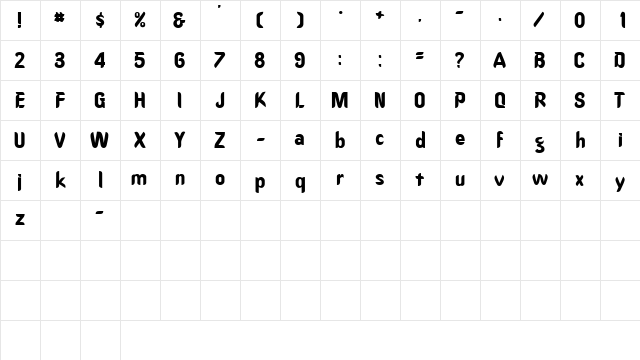
SmidgenSSK Regular
Design Context for SmidgenSSK Typeface
SmidgenSSK is a composed and adaptable typeface that performs quietly and consistently across a wide range of design contexts.